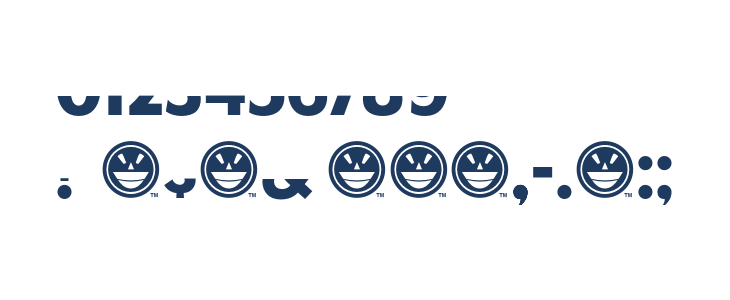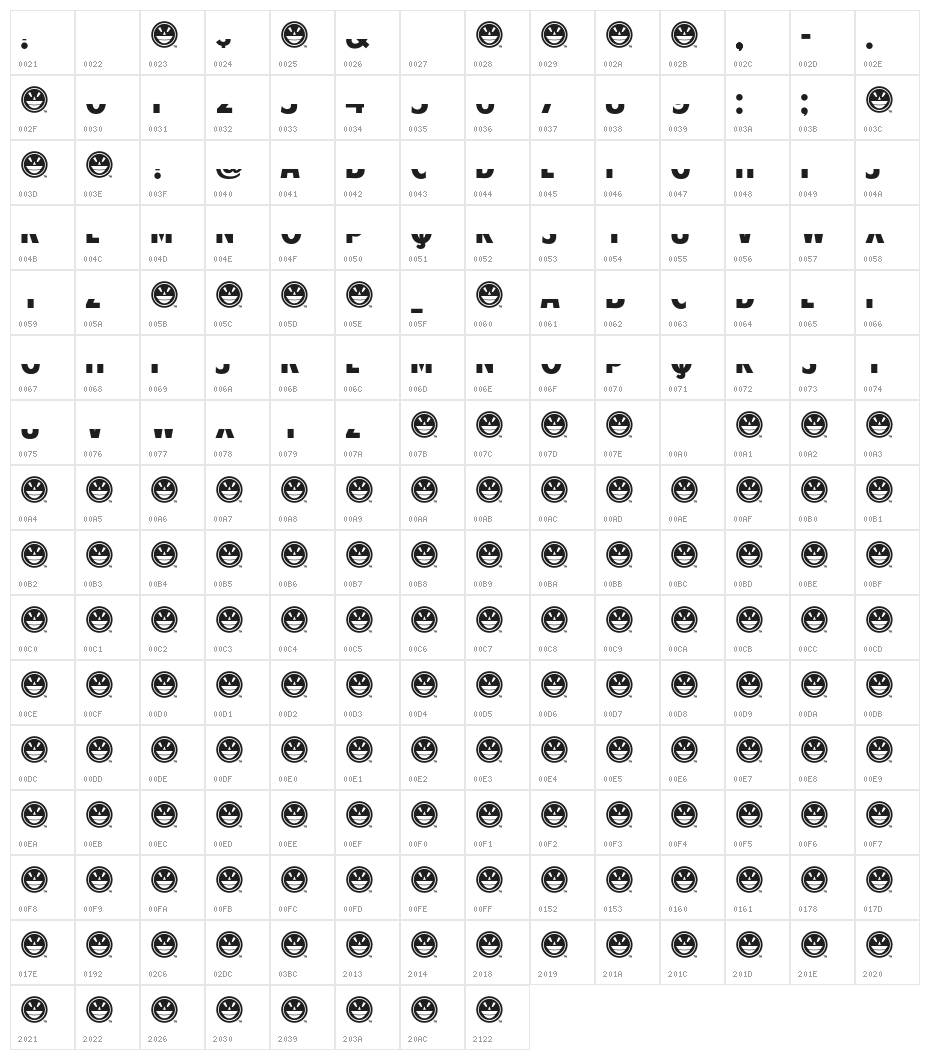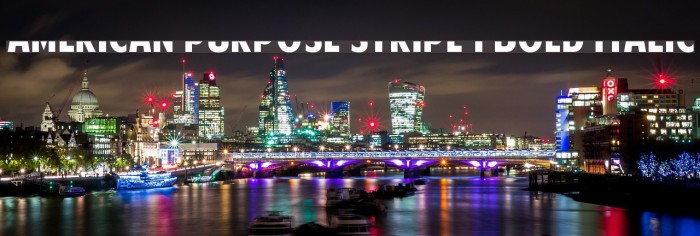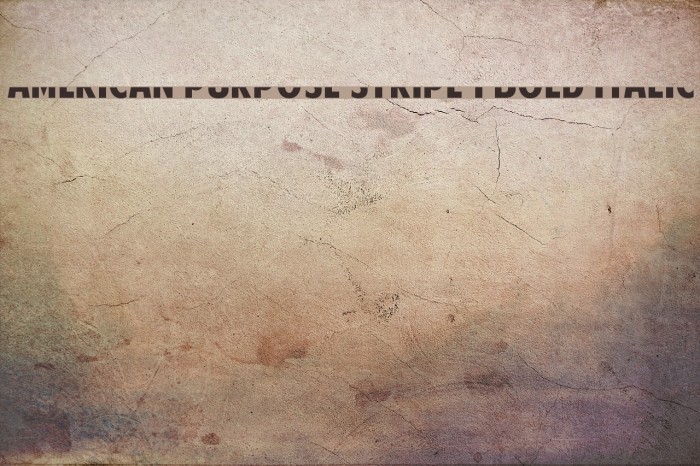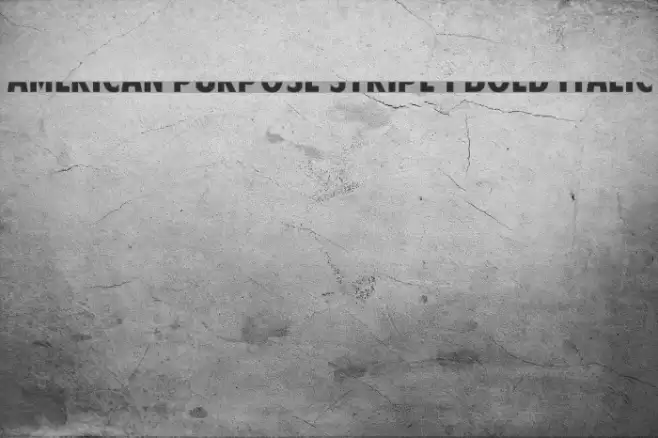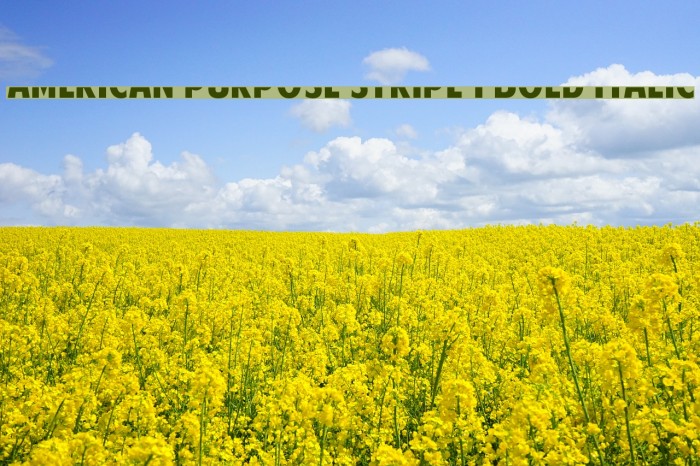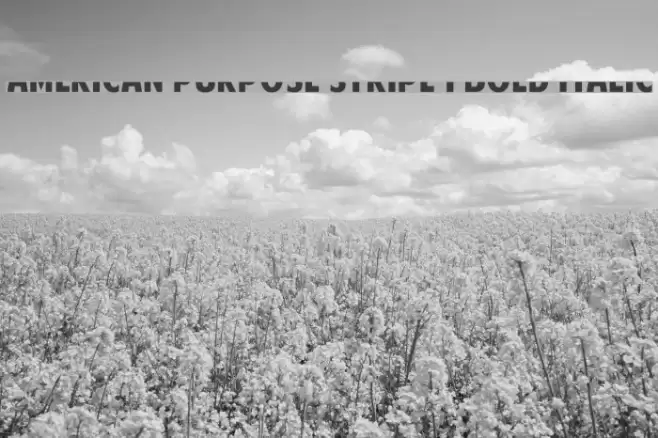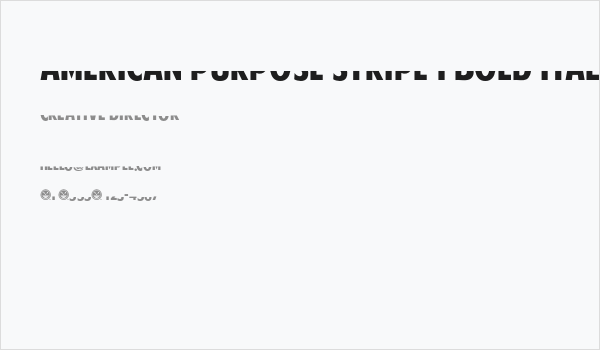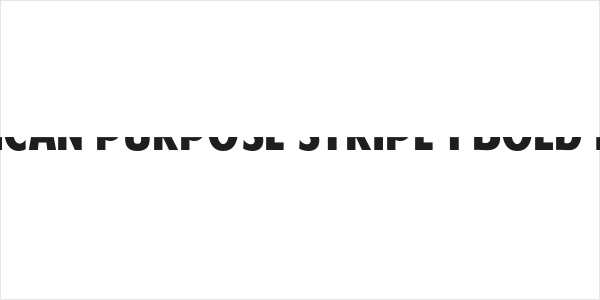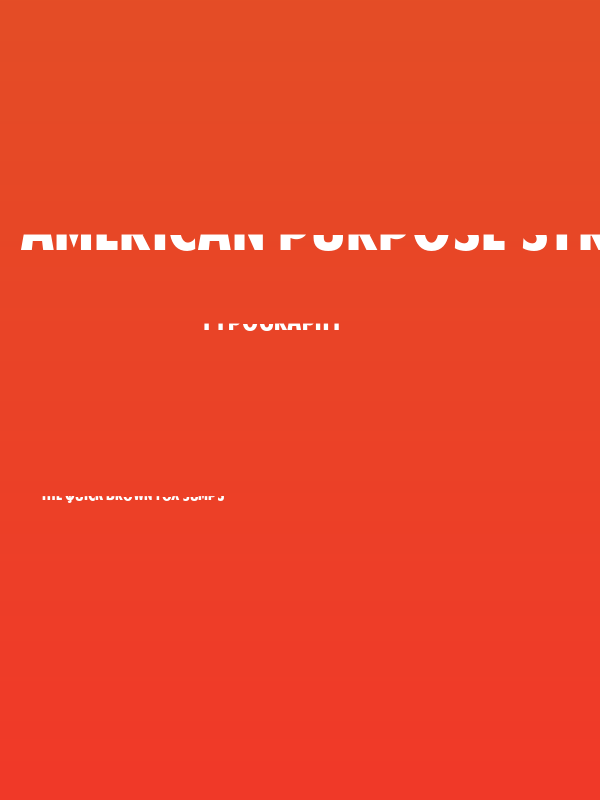
American Purpose STRIPE 1 Bold Italic Font
American Purpose STRIPE 1 Bold Italic Description
This font exhibits a bold and striking appearance with a distinctly modern and geometric style. The characters are designed with a strong emphasis on horizontal and vertical lines, creating a sense of stability and strength. The uppercase letters are particularly prominent, featuring sharp angles and clean edges. The lowercase letters maintain a consistent style, ensuring readability while retaining the bold aesthetic. The numbers are equally robust, designed to stand out with clarity. Special characters are included, adding versatility to the font's usage. The italic slant adds a dynamic feel, enhancing the font's modern appeal.
| Proposed Projects | Ideal for branding, advertising, headlines, and modern design projects. |